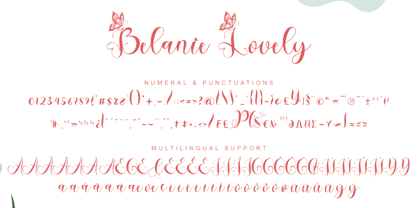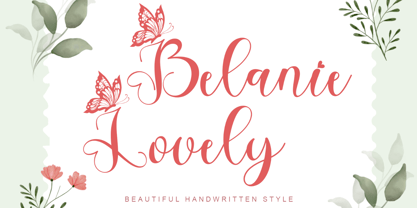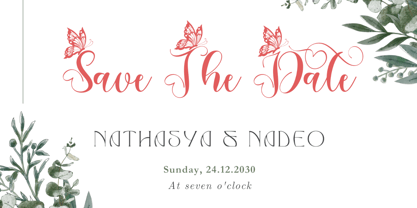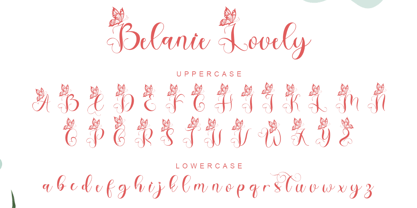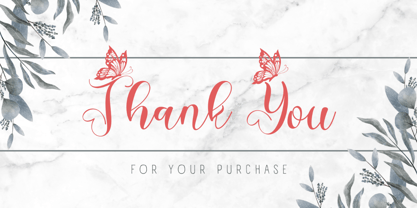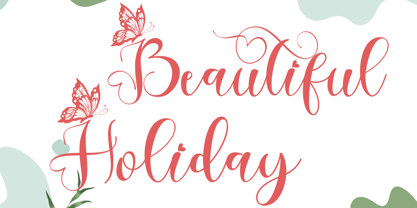
Belanie Lovely
by Yoga Letter
The Belanie Lovely Font Family was designed by Isroni Yoga Prasetya and published by Yoga Letter. Belanie Lovely contains 1 styles. More about this family
"Belanie Lovely" is a beautiful and unique handwritten font with butterfly decoration on each capital letter. Equipped with uppercase, lowercase, numeral, punctuations and multilingual support. Very suitable for spring, summer, easter, wedding, valentine, invitations, christmas and others.
Designers: Isroni Yoga Prasetya
Foundry: Yoga Letter
Yoga Letter is independent Type Foundry based in Indonesia, Magelang. I'm a graphic designer who love lettering and creates some fonts with all of my depth love. I'm making creative & fresh fonts, high quality, highly recommended, and suitable for your business. I hope can be a contributor as a fonts author at MyFonts, and I will do the best to create amazing fonts.